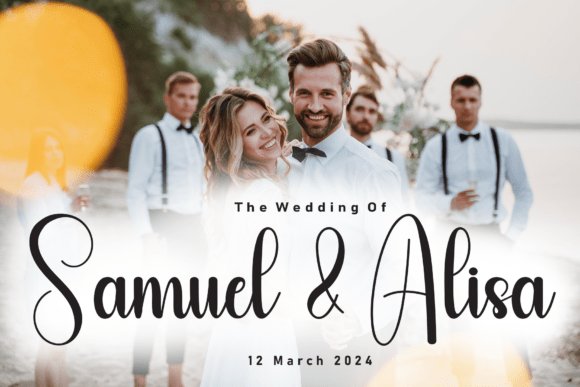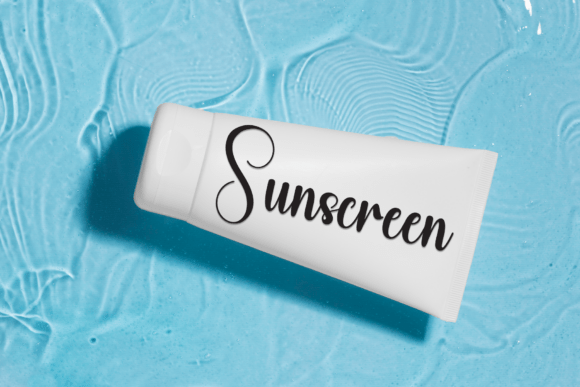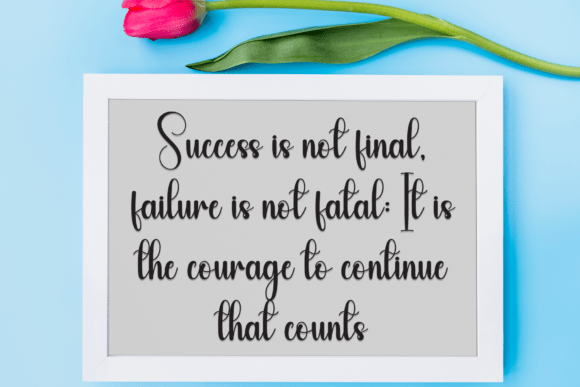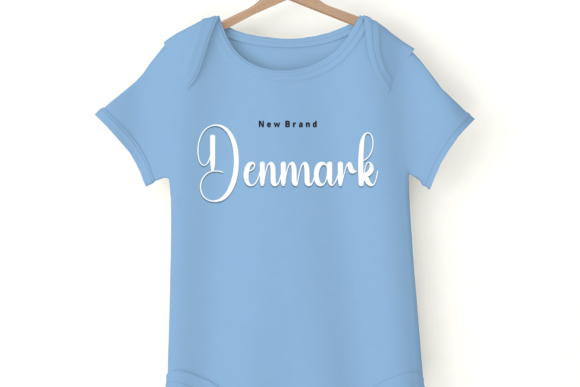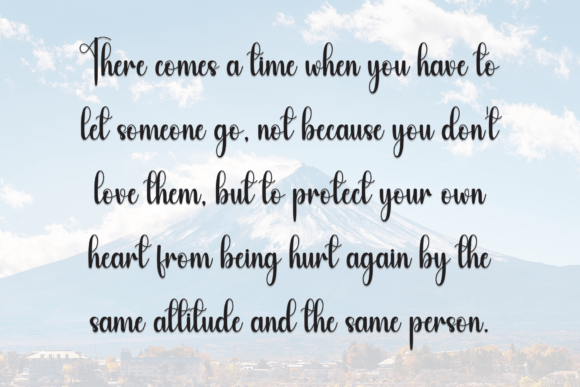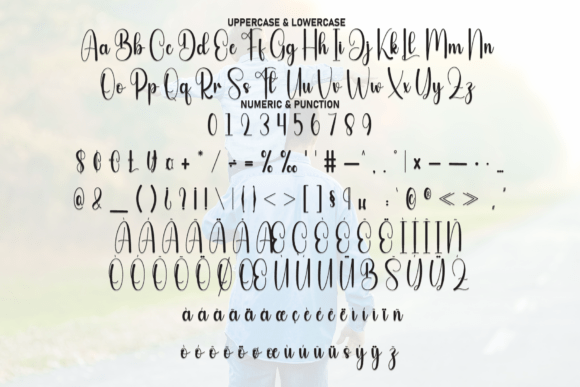
Daddy Font: Elevate Your Designs with Elegance and Playfulness
In the world of typography, fonts play a crucial role in conveying the tone and personality of a brand, project, or message. For designers and crafters seeking a stylish and versatile font, Daddy Font is an excellent choice. This beautiful handwritten script font seamlessly blends elegance and playfulness, making it perfect for a wide range of applications, from invitations and branding to social media and digital art.
The Characteristics of Daddy Font
Daddy Font is a stunning example of modern script typography. Its flowing curves and natural rhythm give it a unique, organic feel that sets it apart from more traditional fonts. The strokes are smooth and connected, creating a sense of fluidity and movement. This font’s design is characterized by:
- Elegant curves: Daddy Font features beautiful, sweeping curves that add a touch of sophistication to any design.
- Natural rhythm: The font’s natural flow and rhythm create a sense of harmony and balance.
- Playful undertones: Despite its elegance, Daddy Font has a playful side, making it perfect for designs that require a touch of whimsy.
Uses for Daddy Font
Daddy Font’s versatility makes it suitable for a wide range of applications, including:
- Invitations: Add a personal touch to wedding invitations, birthday party invites, or any other special occasion.
- Branding: Use Daddy Font to create a unique and memorable brand identity for your business or product.
- Social media: Elevate your social media presence with eye-catching graphics and posts featuring Daddy Font.
- Digital art: Incorporate Daddy Font into your digital art projects, such as illustrations, graphics, or mixed media.
Benefits of Using Daddy Font
So, why choose Daddy Font for your next project? Here are just a few benefits:
- Warmth and sophistication: Daddy Font brings a sense of warmth and sophistication to any design, making it perfect for projects that require a touch of elegance.
- Creativity and versatility: This font’s playful undertones and flowing curves make it an excellent choice for designers and crafters looking to add some creativity to their work.
- Easy to read: Despite its elegant design, Daddy Font is easy to read, making it suitable for body text and headlines.
Tips for Using Daddy Font Effectively
To get the most out of Daddy Font, follow these tips:
- Pair with complementary fonts: Combine Daddy Font with sans-serif fonts, such as Arial or Helvetica, to create a striking contrast.
- Experiment with colors: Try pairing Daddy Font with bold, bright colors to add a pop of personality to your design.
- Play with sizes: Use Daddy Font in various sizes to create visual interest and hierarchy in your design.
Daddy Font is a stunning handwritten script font that offers the perfect blend of elegance and playfulness. Its flowing curves, natural rhythm, and smooth strokes make it an excellent choice for designers and crafters seeking to add a personal touch to their work. With its versatility, ease of use, and range of applications, Daddy Font is sure to become a favorite in your typography arsenal.
Whether you’re designing invitations, branding materials, or social media graphics, Daddy Font is sure to elevate your work and bring a touch of sophistication and creativity to any project.